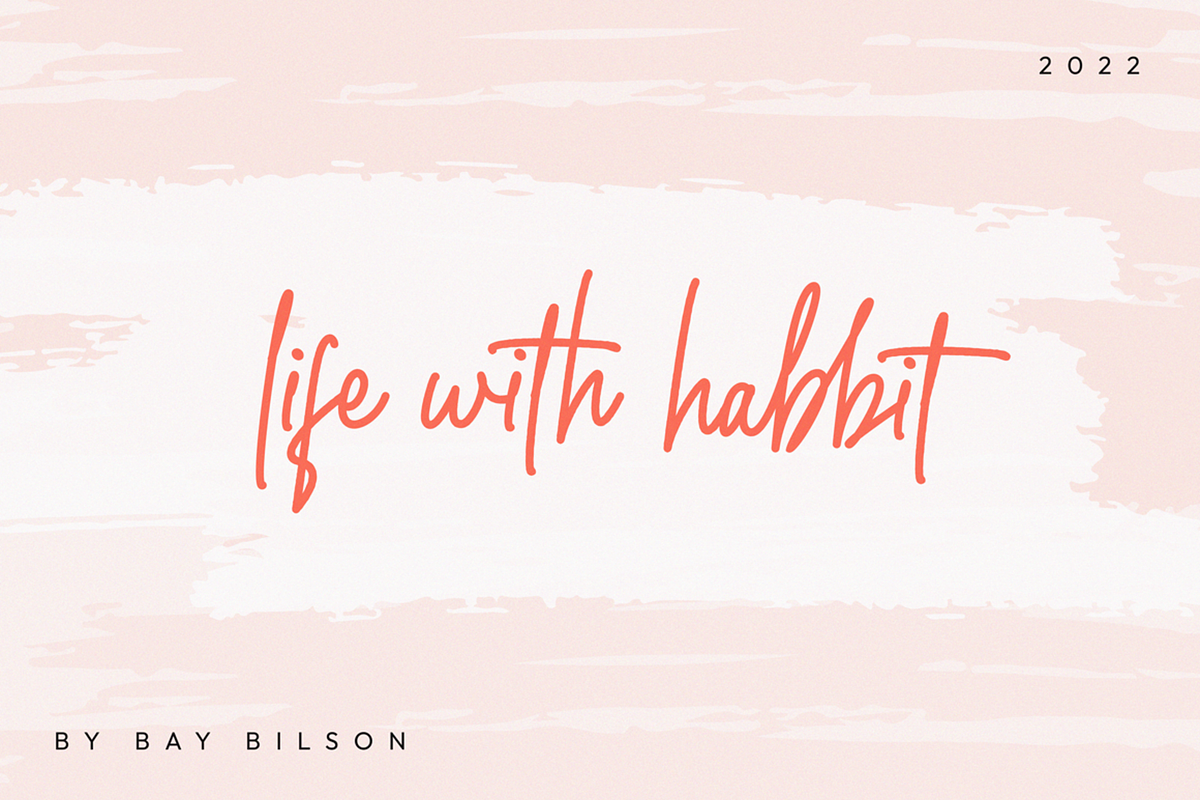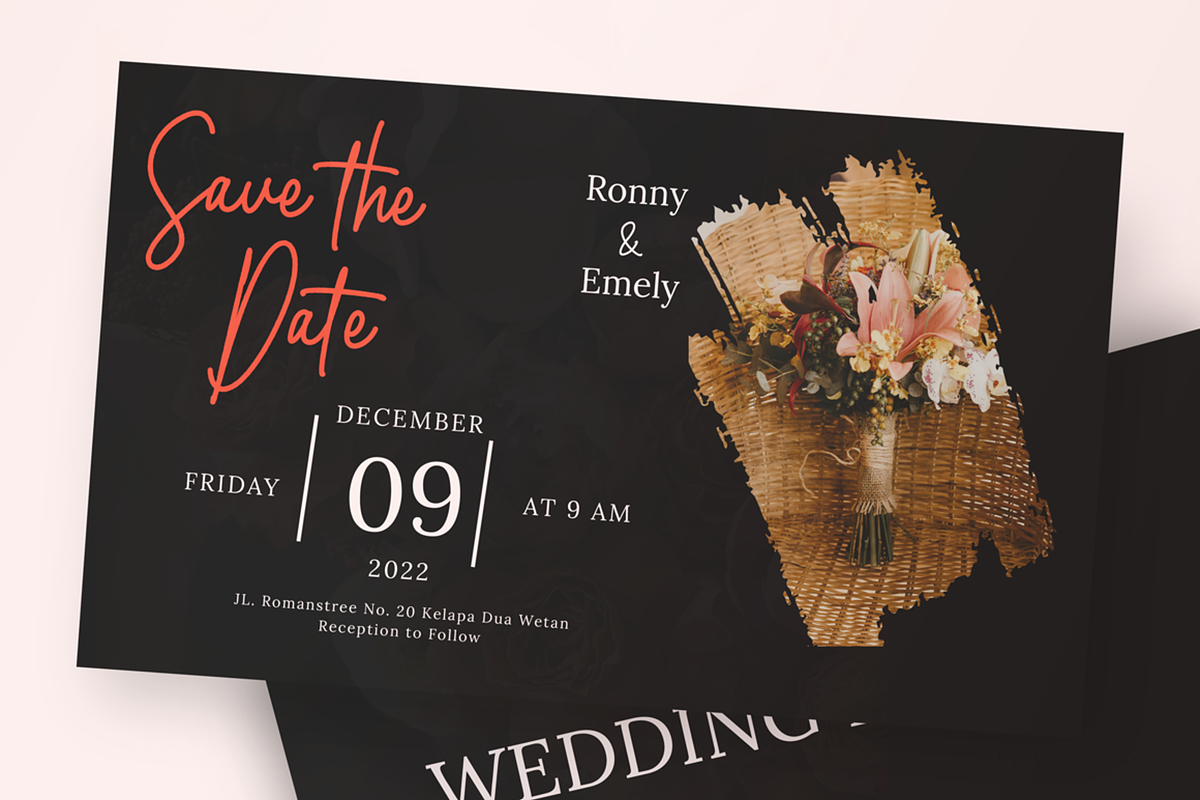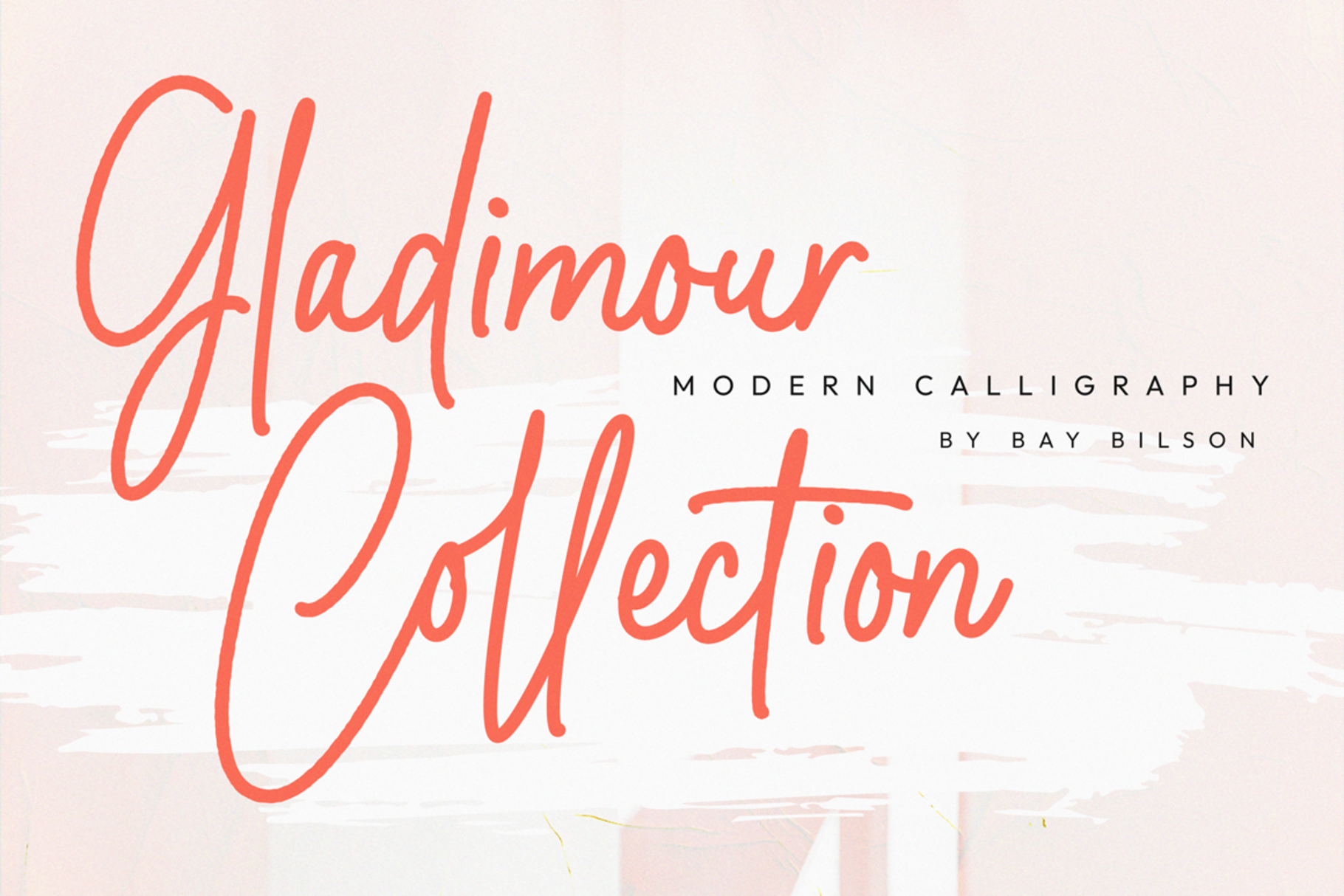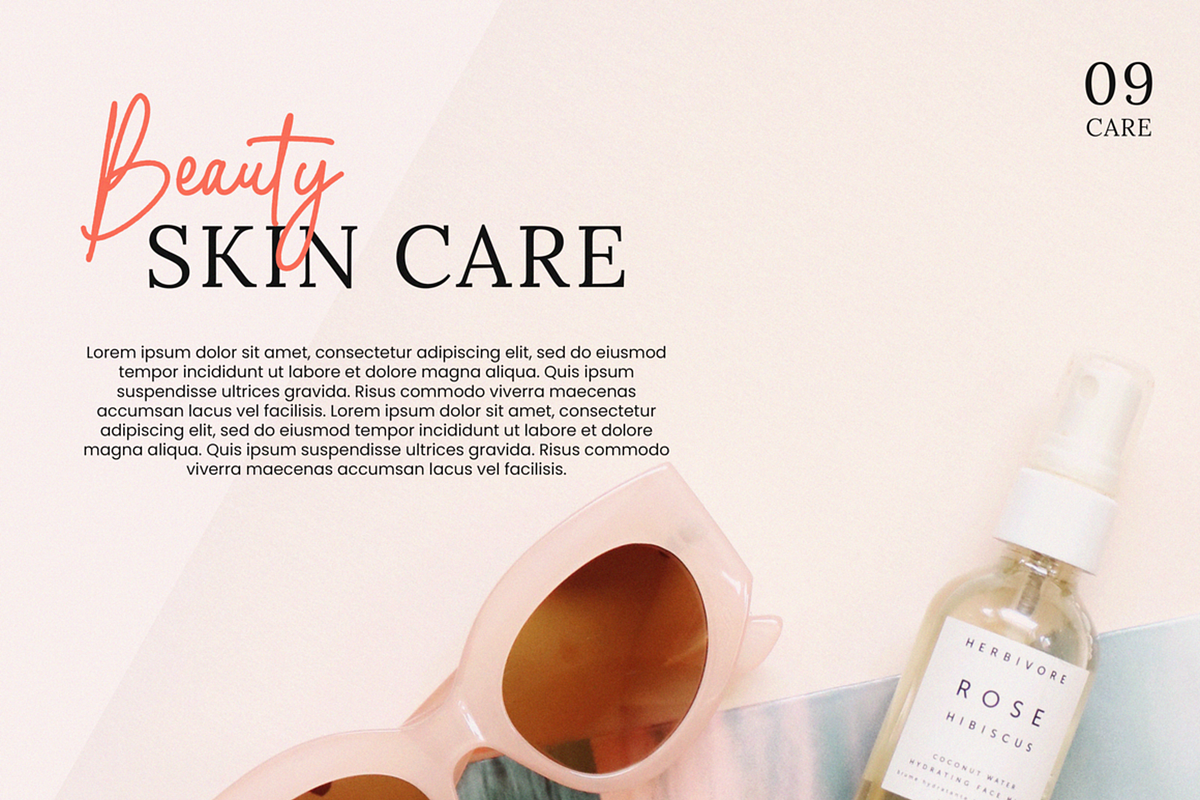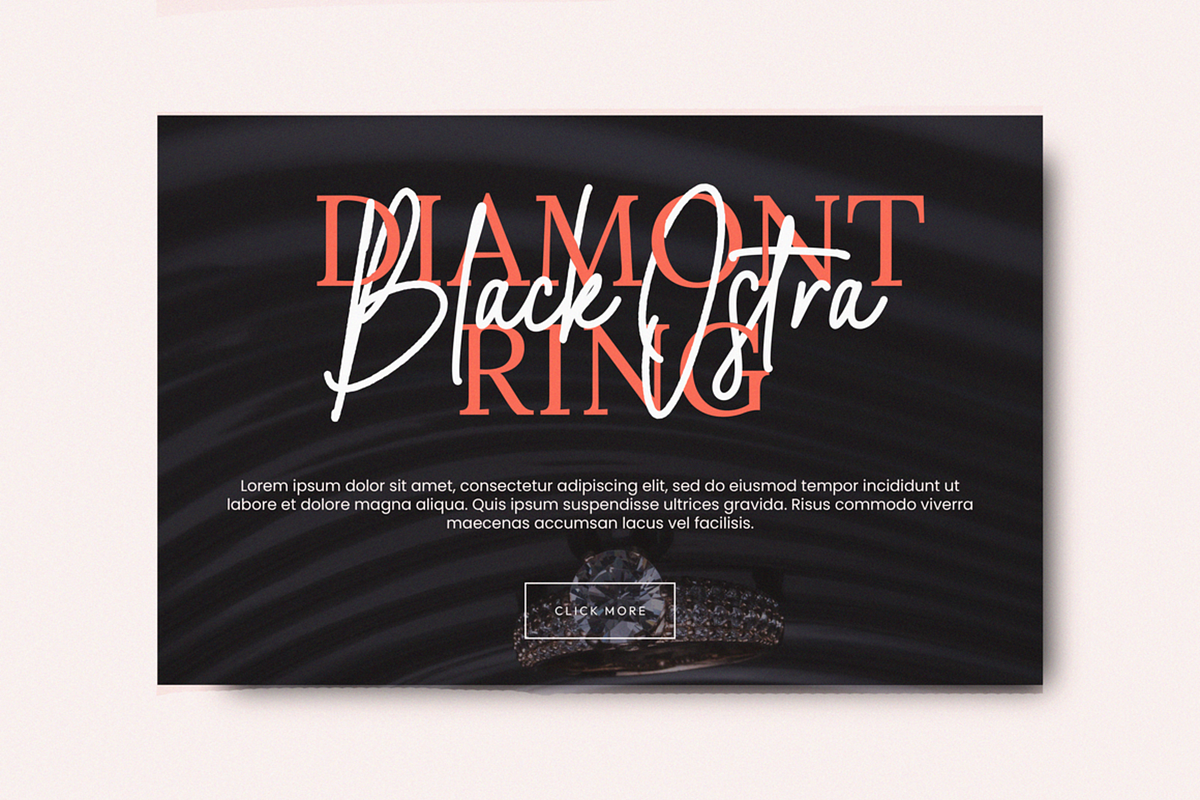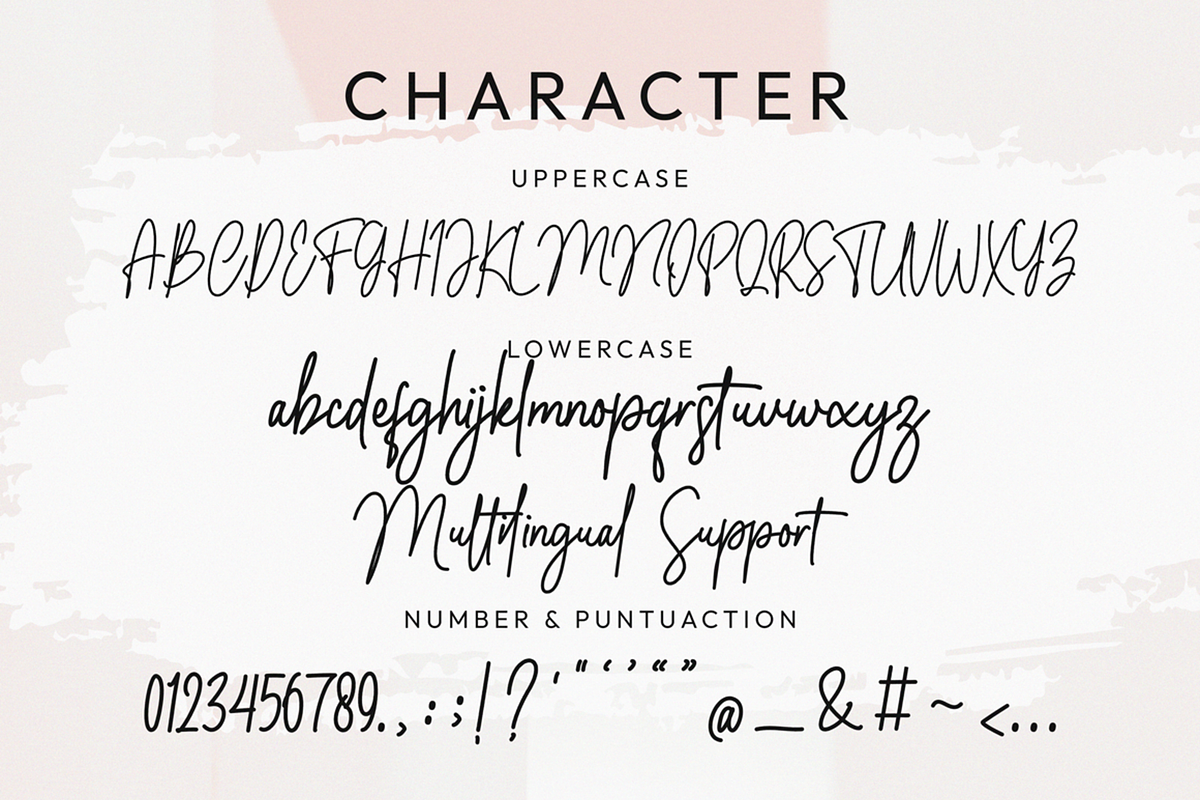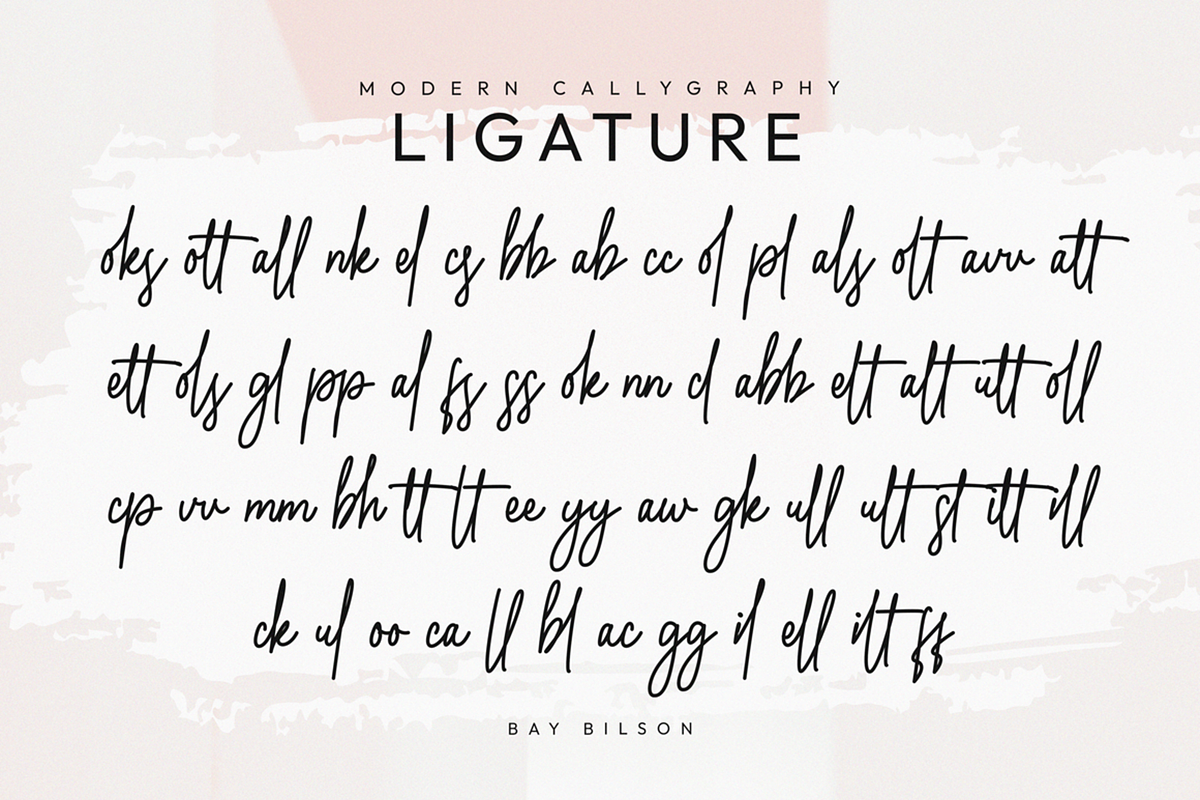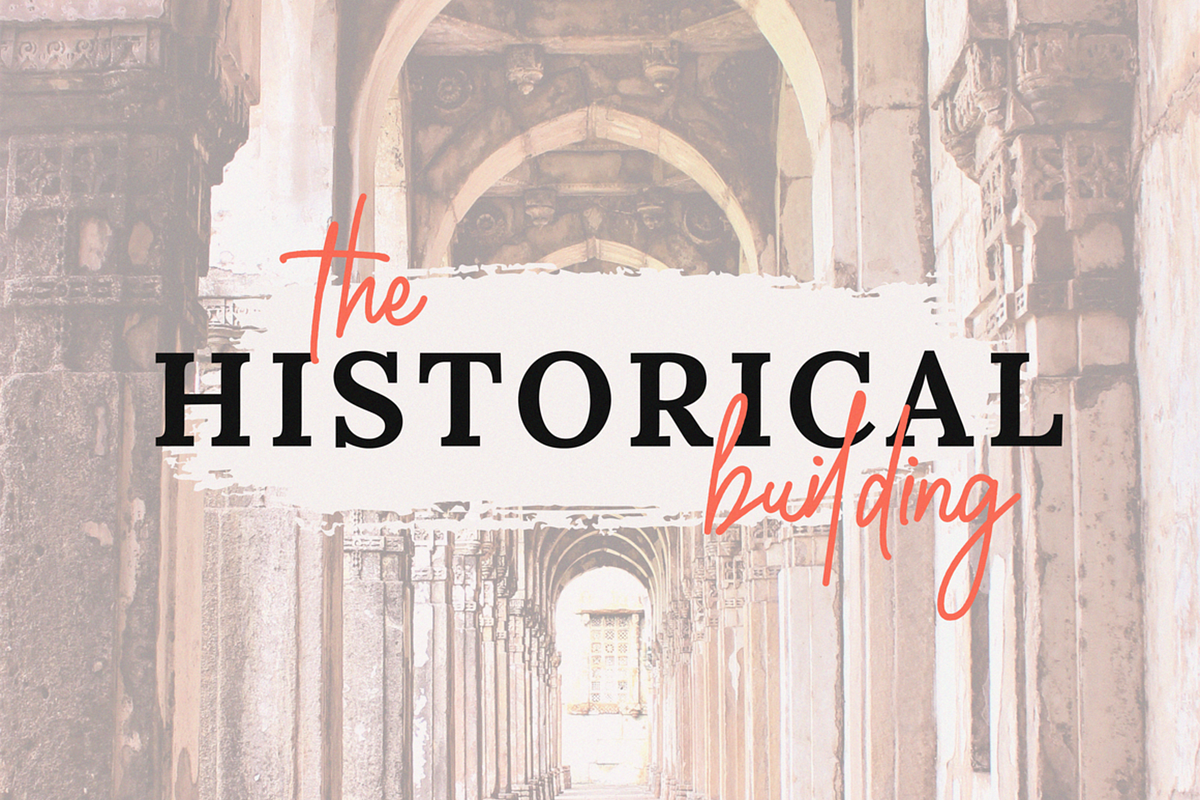
Gladimour Font
"Gladimour" feels equally charming and elegant. It looks stunning on wedding invitations, thank you cards, quotes, greeting cards, logos, business cards, and every other design which needs a handwritten touch. It is also PUA encoded which means you can access all of the glyphs and ligatures with ease!
-Full alphabet with Uppercase and Lowercase A-Z for script
-Numbers for all fonts
-Punctuation and symbols for all fonts
-Ligature Lowercase script
-Multilingual support all fonts